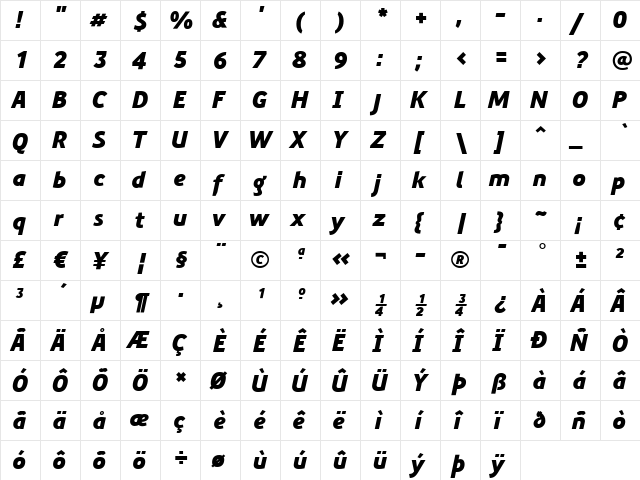
PreciousSans Bold Italic Font Preview
PreciousSans Bold Italic
Design Context for PreciousSans Typeface
PreciousSans offers clean, dependable letterforms without strong stylistic allegiance, making it a practical choice for designers who need flexibility. The dynamic lean of this cut emphasises speed and emphasis in any layout. Its bold stroke weight gives it real presence on the page.
Pro Tip: Use PreciousSans for emphasis, pull quotes, and subheadings where its slanted energy can add rhythm to the layout.